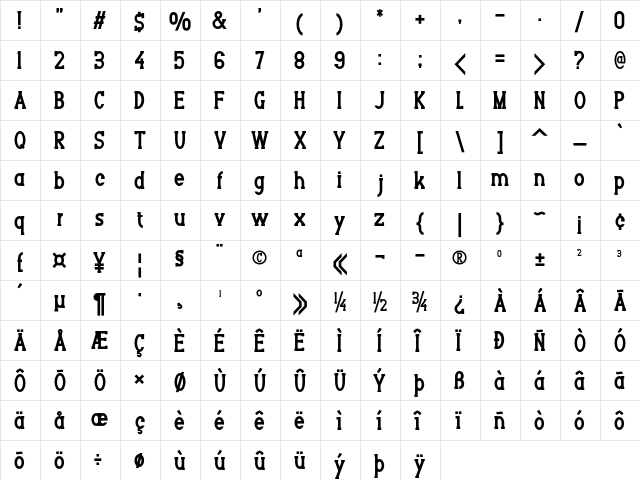
Berlian Regular
| Foundry | Groens |
Design Context for Berlian Typeface
Berlian takes a measured approach to typography — its balanced proportions and neutral character make it a reliable workhorse for both digital and print work.